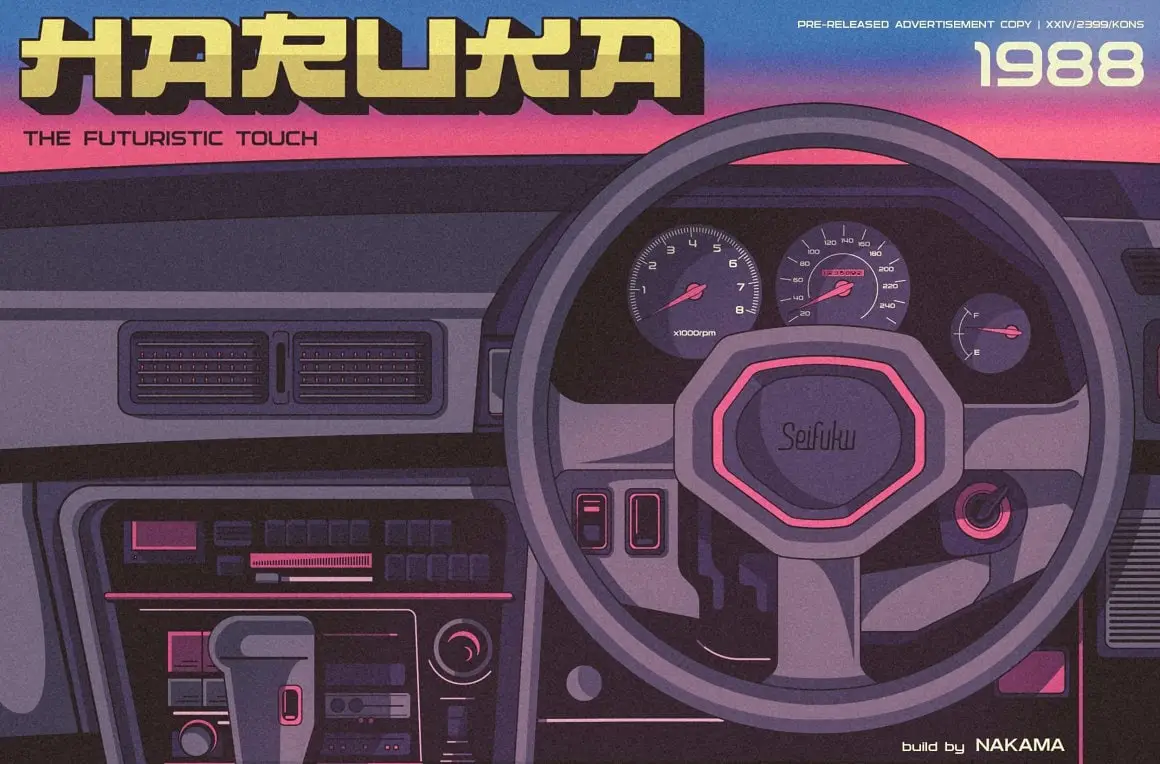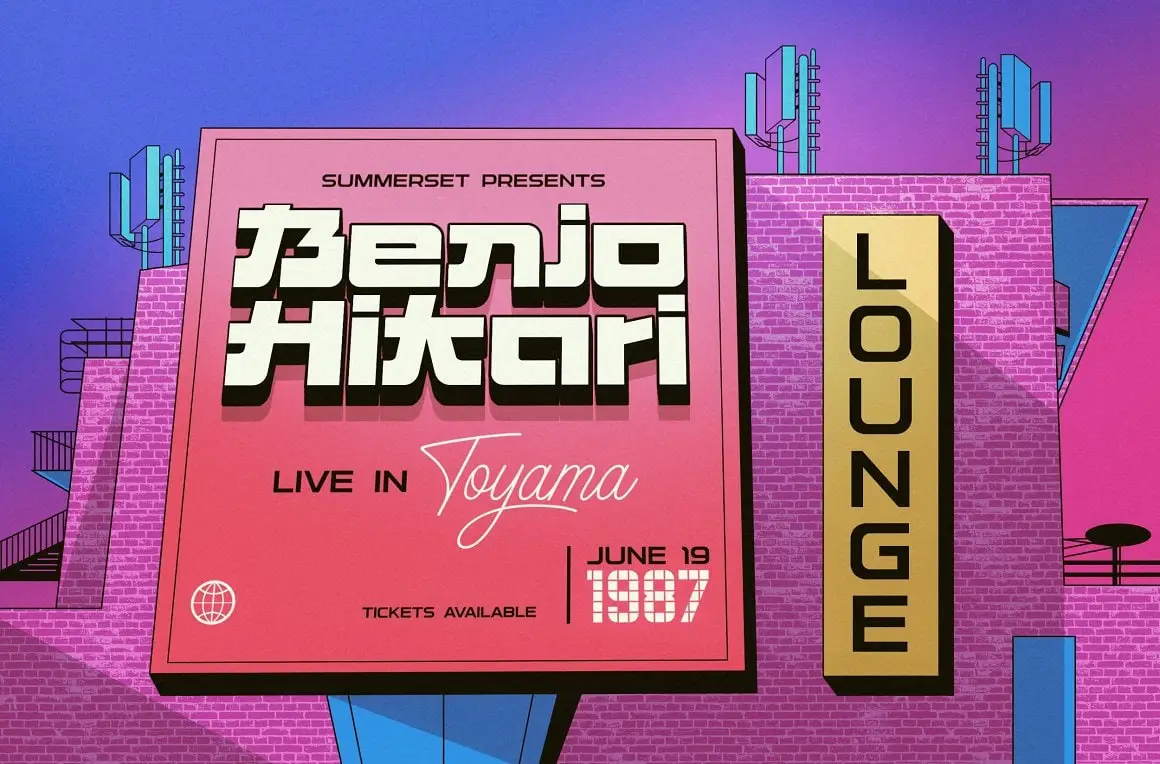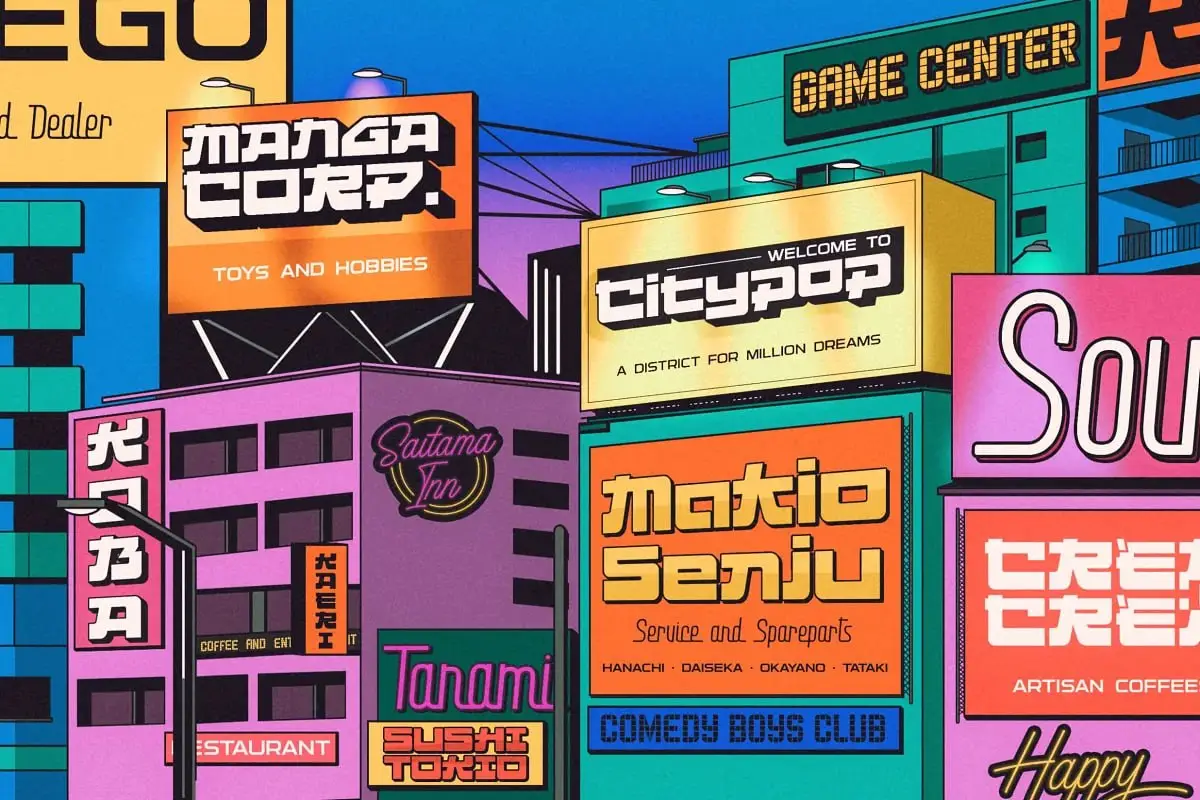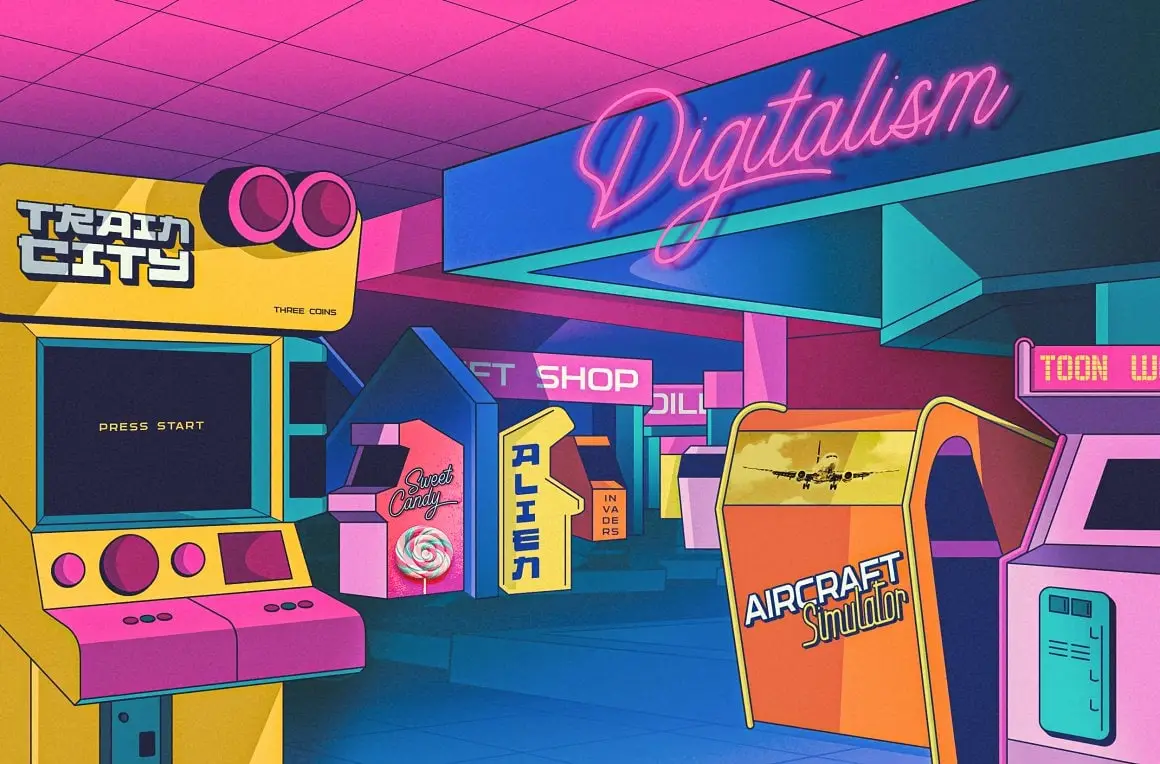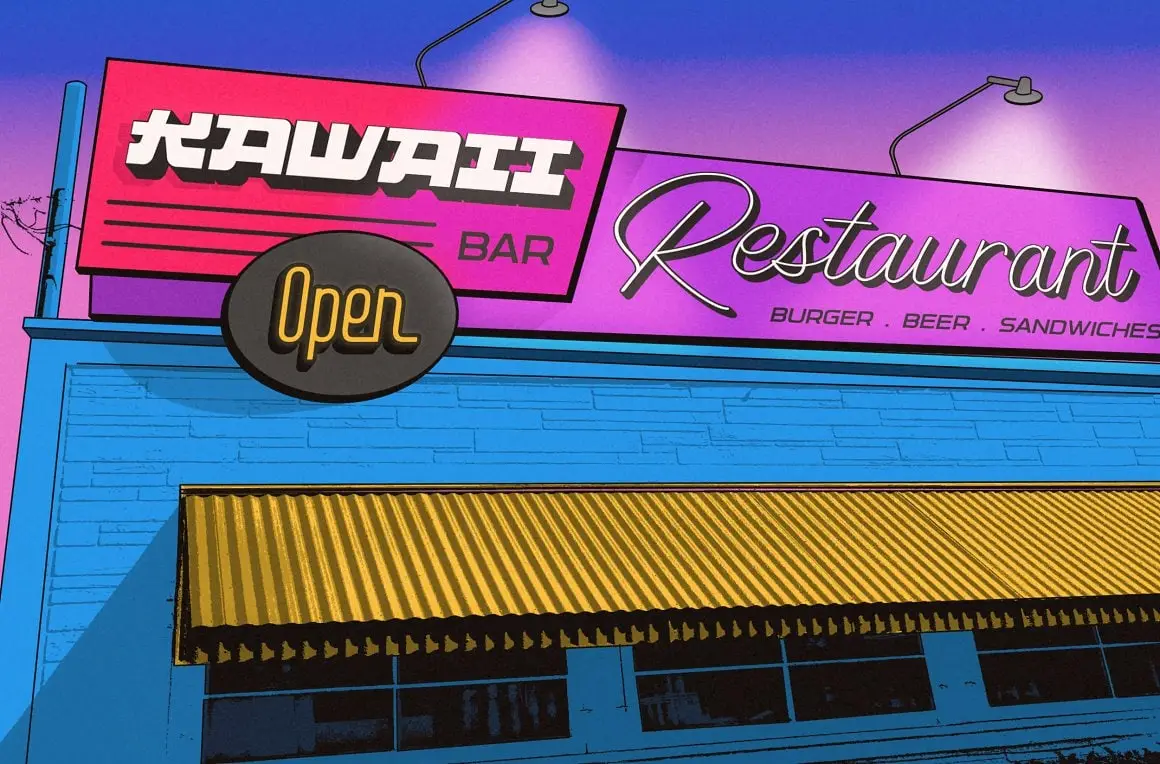
Citypop Font
The Citypop Font is a modern, stylish typeface designed to bring a contemporary flair to your projects. With its clean lines and geometric shapes, this font is perfect for a variety of applications, from branding to digital media.
• Stylish and modern design
• Ideal for branding, logos, and advertising materials
• Great for web design and user interfaces
• Perfect for print projects such as posters and flyers